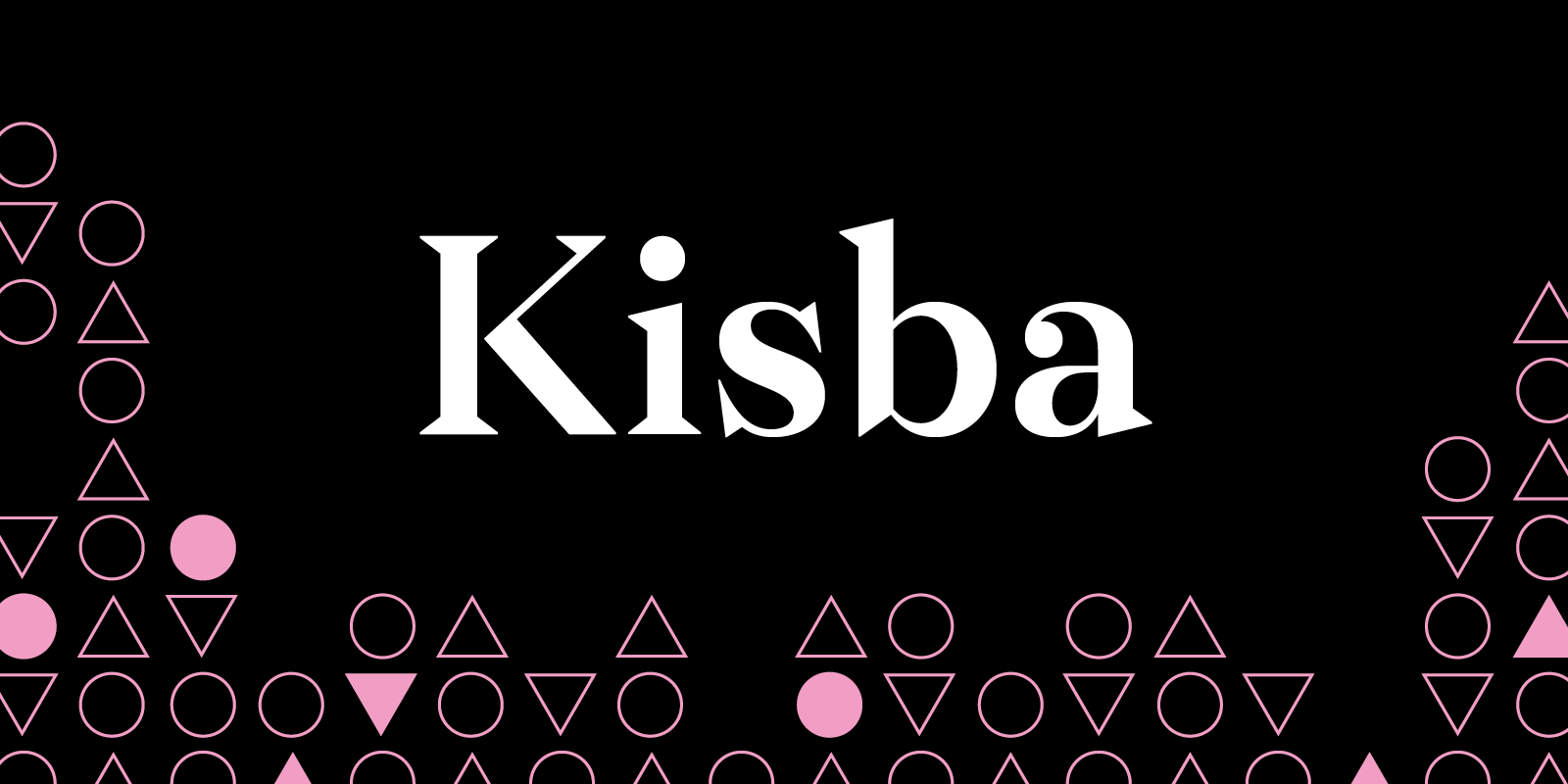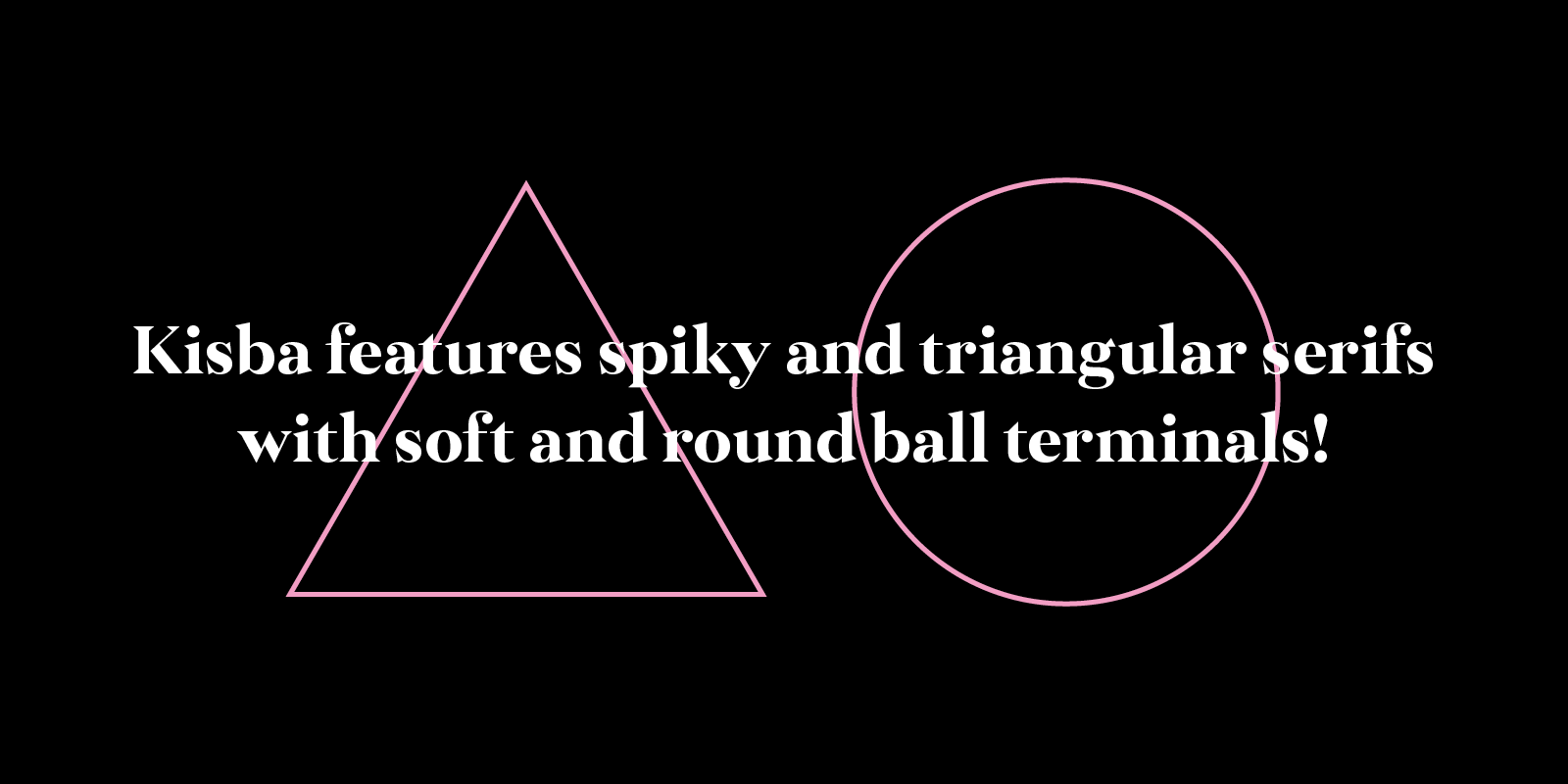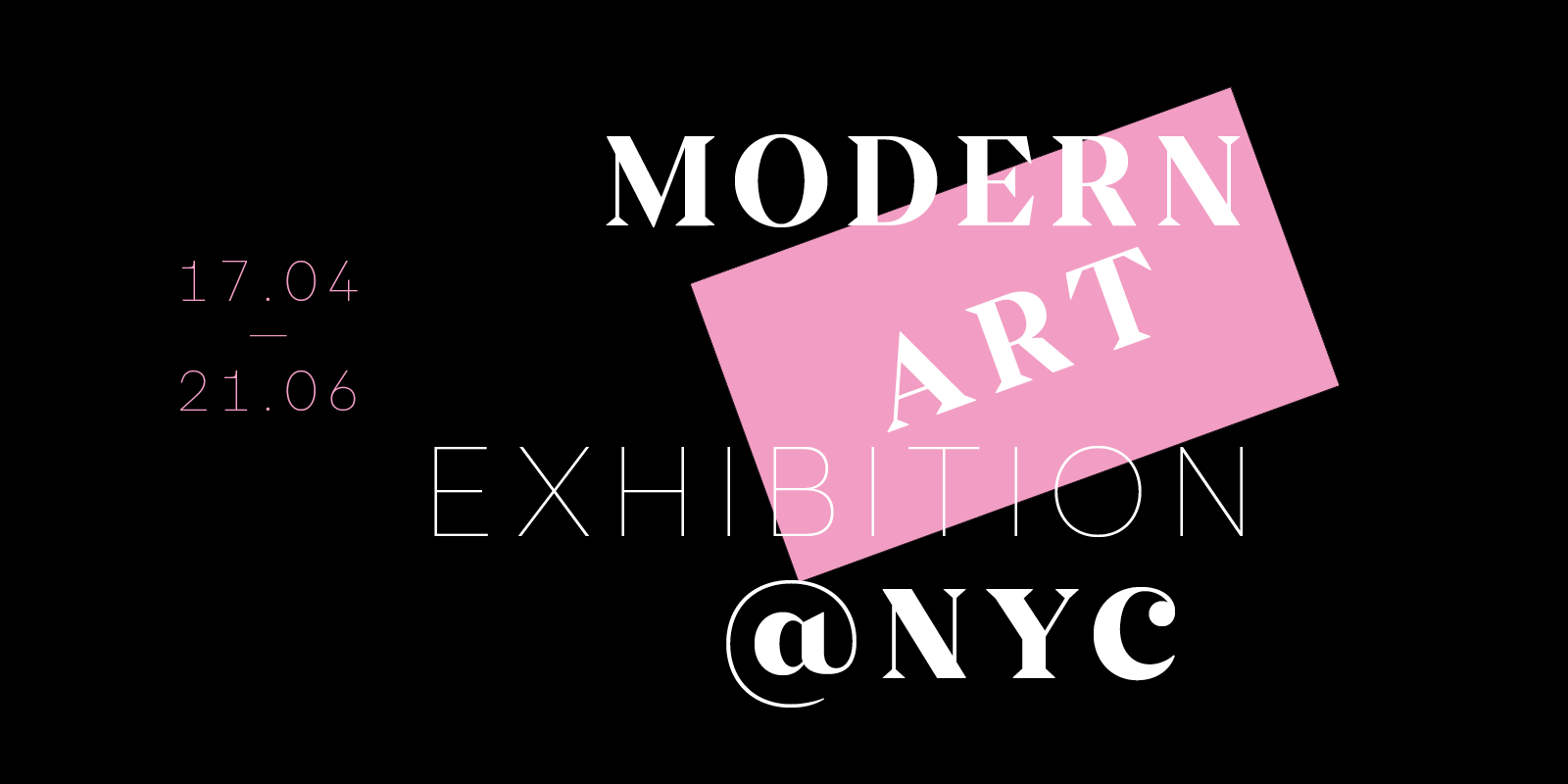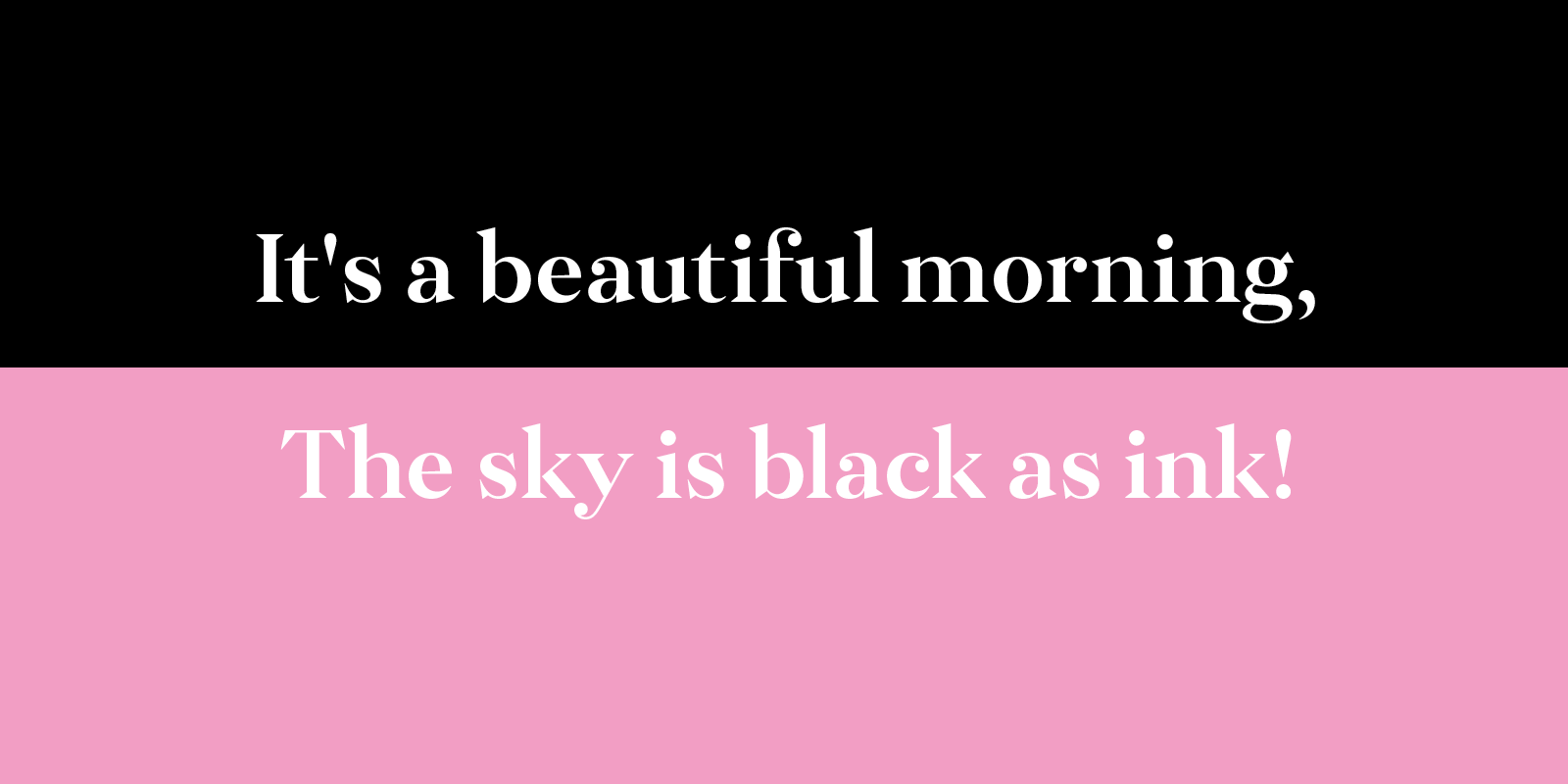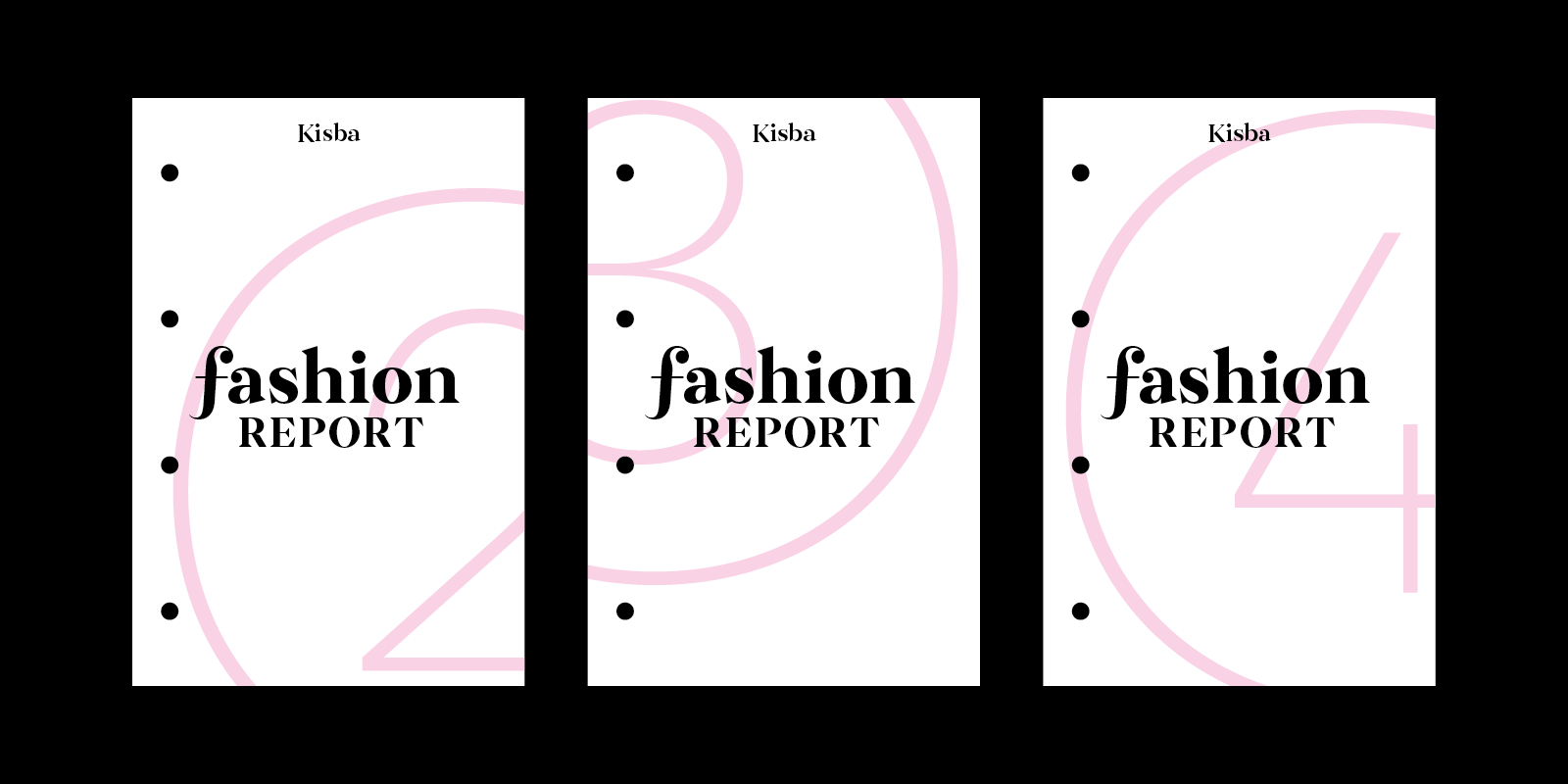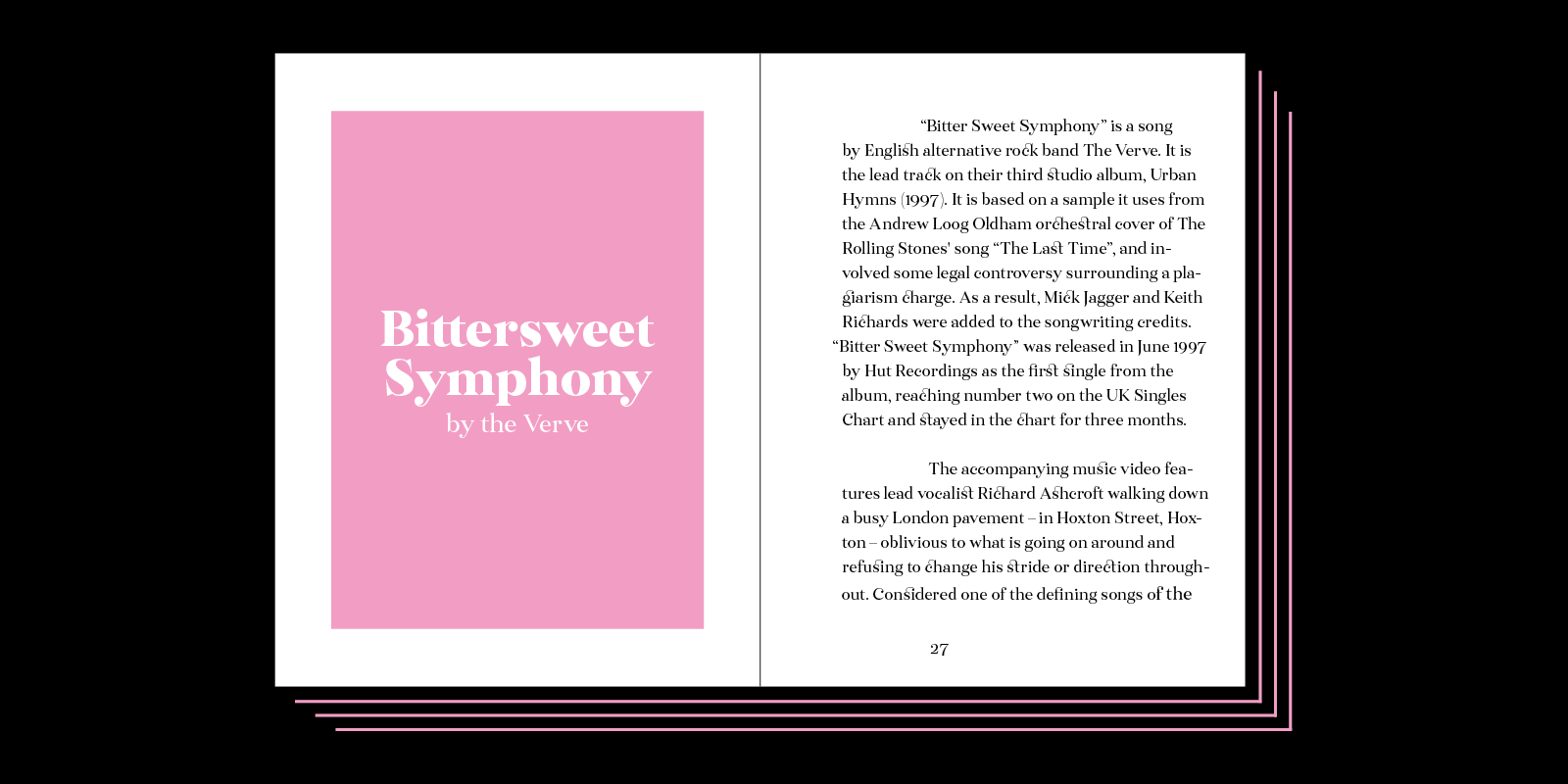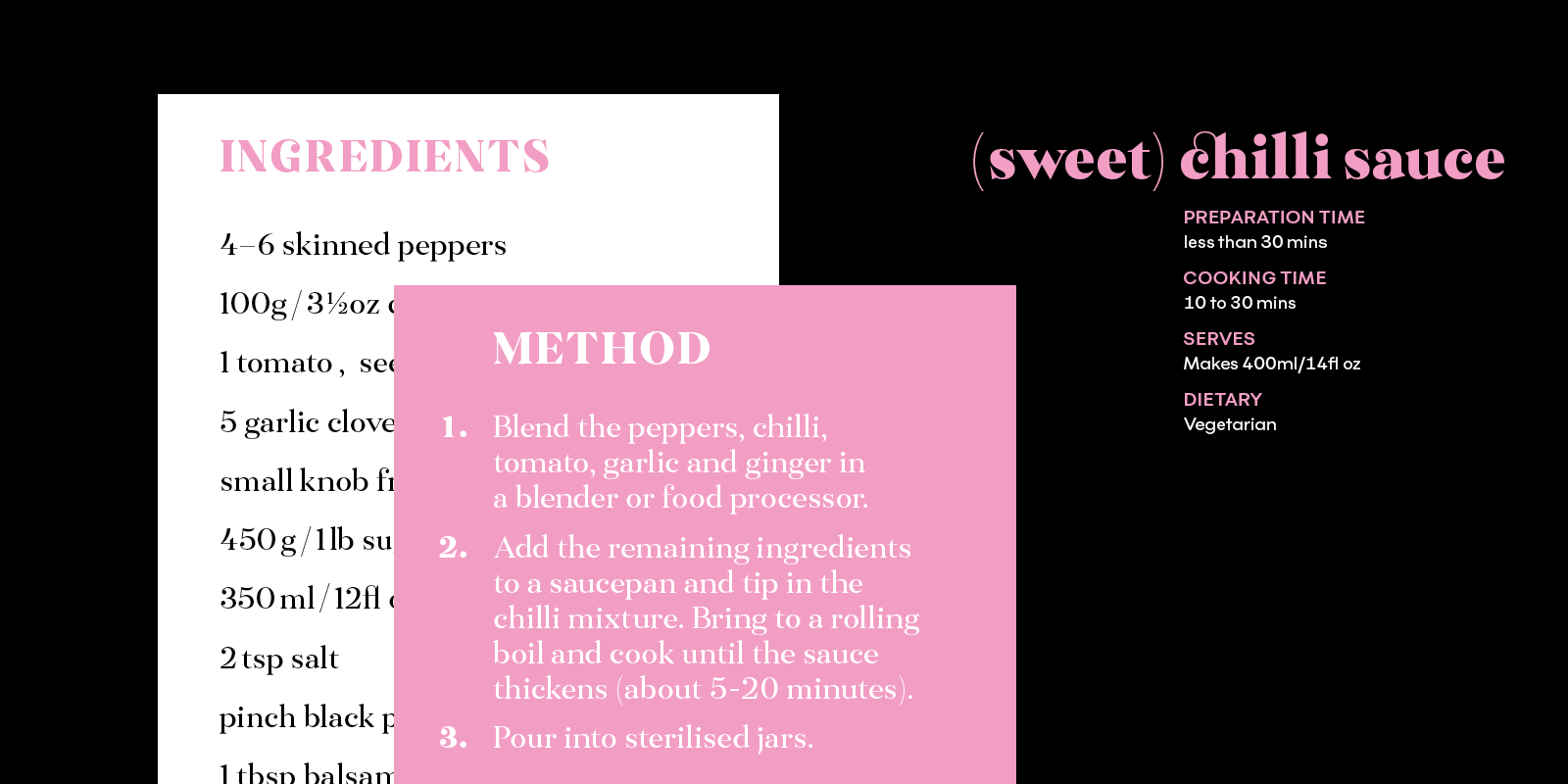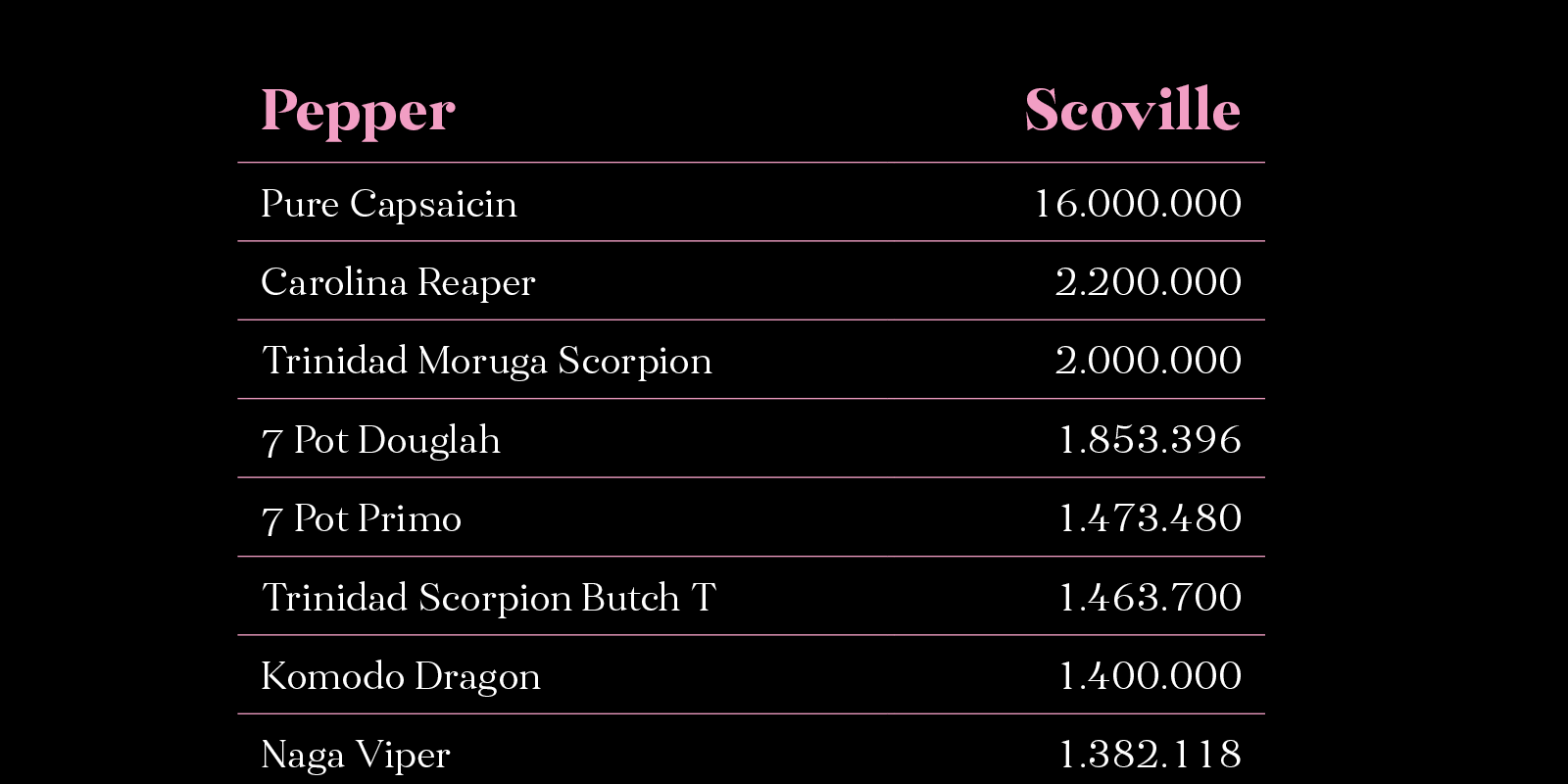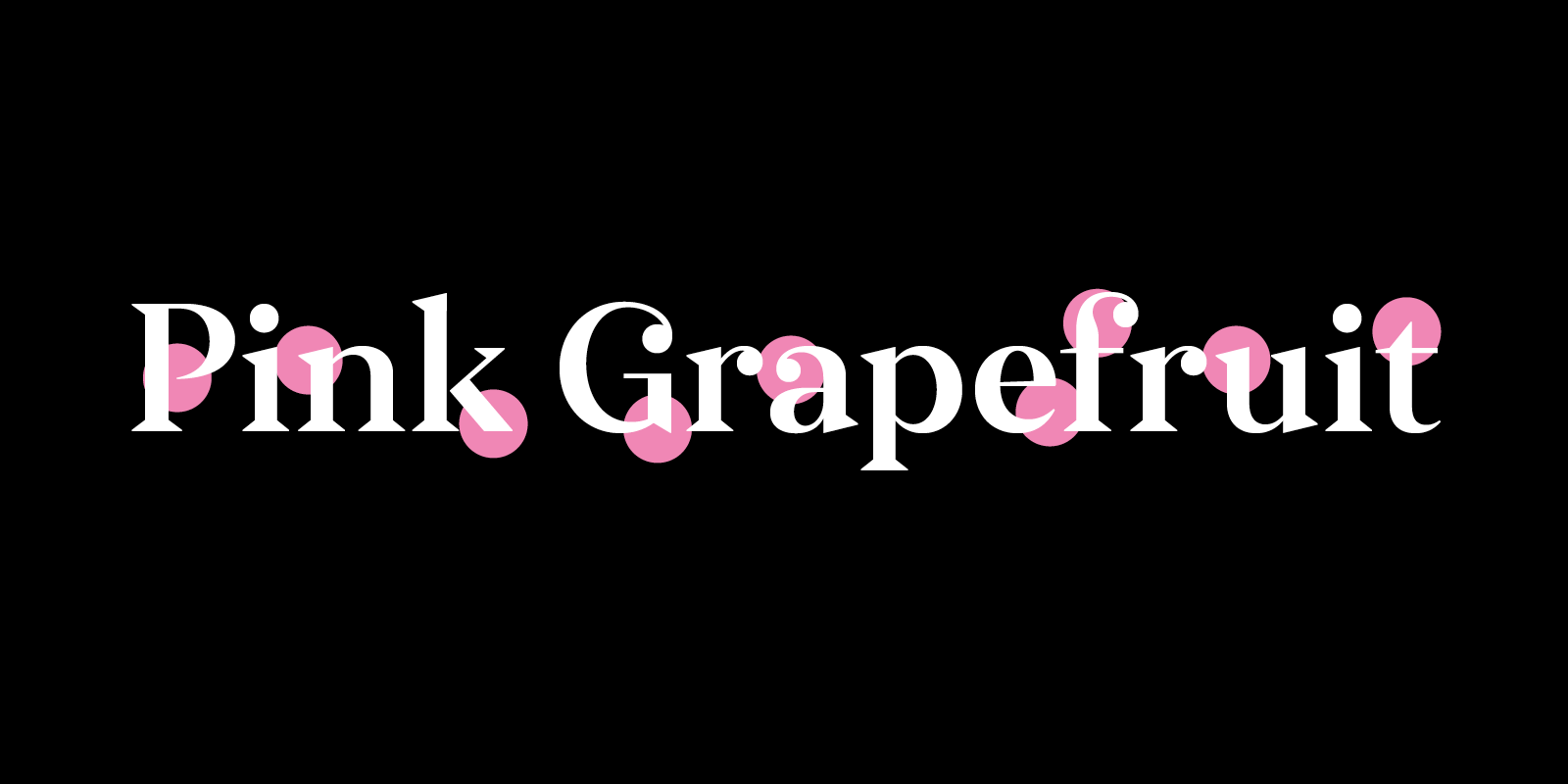
Kisba
A character actor that turns heads. Spiky serifs, soft ball terminals.
All eyes on Kisba: enter a display typeface designed to arouse attention. Kisba is that one guest who joins a party, and a murmur goes through the crowd. Kisba is pure charisma.
Opposites attract: Kisba combines sharp wedge serifs and spiky spurs with round and soft ball terminals. Infuse this with a neoclassical stroke contrast and you get a thrilling typeface driven by visual extremes. Kisba’s extraordinarily designed, thin and monolinear diacritics, punctuation marks, and symbols add to this modern and elegant character.
Kisba is a diva, though, not a workhorse. With its flamboyant looks and extravagant letters like f, k, and x, this typeface is primarily intended for display use and short texts. In the showbiz, it’s all about excitement, not comfort, after all!
The entire font family consists of seven weights from Thin to Black, offering plenty of possibilities to set texts and headlines. With about 600 characters per weight, Kisba contains enough functionality for the demands of a skilled typographer. OpenType features, such as a large set of ligatures, extended language support, case-sensitive forms, different sets of figures, and arrows, enable sensational designs both in web & print layouts.
Kisba celebrates the dual nature of softness and sharpness in a single typeface. It’s a character actor that turns heads, guaranteed to leave a mark.